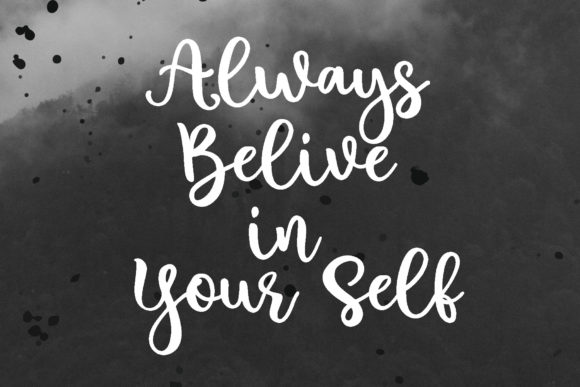
Broughtes Font: Elevate Your Designs with Elegance and Sophistication
In the world of typography, a font can make or break a design. The right font can elevate your creation from ordinary to extraordinary, conveying the perfect tone and mood to your audience. If you’re on the hunt for a font that exudes elegance and sophistication, look no further than Broughtes Font. This ravishing script font is a game-changer, designed to enhance any project with its beautiful, highly detailed letterforms.
What Makes Broughtes Font Stand Out?
Broughtes Font is more than just a pretty face. This font is neatly crafted with attention to detail, ensuring that every letter, swash, and glyph is a work of art. Its unique features include:
- PUA Encoding: Broughtes Font is PUA (Private Use Area) encoded, giving you easy access to all glyphs and swashes. This means you can effortlessly create stunning text arrangements, experimenting with different styles and effects.
- Highly Detailed: The font’s intricate details make it perfect for a wide range of applications, from elegant headings and titles to beautiful quotes and phrases.
- Versatile: Whether you’re working on a branding project, website design, or social media graphics, Broughtes Font adapts seamlessly to any topic or theme.
Endless Design Possibilities with Broughtes Font
Broughtes Font is an incredibly versatile typeface, suitable for a vast array of design applications. Here are just a few examples of how you can use this stunning font:
- Branding and Logo Design: Create a lasting impression with a custom logo or brand identity that showcases your unique style and personality.
- Web Design: Elevate your website’s typography with Broughtes Font, perfect for headings, titles, and other display text.
- Social Media Graphics: Make your social media posts stand out with eye-catching graphics, quotes, and promotions featuring Broughtes Font.
- Print Design: Use Broughtes Font in brochures, flyers, posters, and other print materials to add a touch of elegance and sophistication.
Tips for Working with Broughtes Font
To get the most out of Broughtes Font, here are some expert tips to keep in mind:
- Experiment with Swashes: Take advantage of the font’s PUA encoding to access a wide range of swashes and glyphs. This will help you create unique and eye-catching text arrangements.
- Mix and Match: Combine Broughtes Font with other typefaces to create a visually appealing contrast. This will add depth and interest to your design.
- Pay Attention to Kerning: Make sure to adjust the kerning to ensure that your text looks balanced and harmonious.
Why Broughtes Font is a Great Addition to Your Font Library
As a designer, you know that having a well-stocked font library is essential for creating stunning designs. Here are just a few reasons why Broughtes Font is a valuable asset to your collection:
- Unique Style: Broughtes Font offers a distinctive, elegant style that will set your designs apart from the rest.
- Versatility: This font can be used in a wide range of applications, making it a versatile addition to your font library.
- High-Quality: Broughtes Font is crafted with attention to detail, ensuring that it looks great in any design.
In conclusion, Broughtes Font is an exceptional script font that can elevate your designs to new heights. Its elegant, highly detailed letterforms, combined with PUA encoding and versatility, make it an invaluable asset to your font library. Whether you’re a seasoned designer or just starting out, Broughtes Font is a great choice for anyone looking to add a touch of sophistication and elegance to their creations.